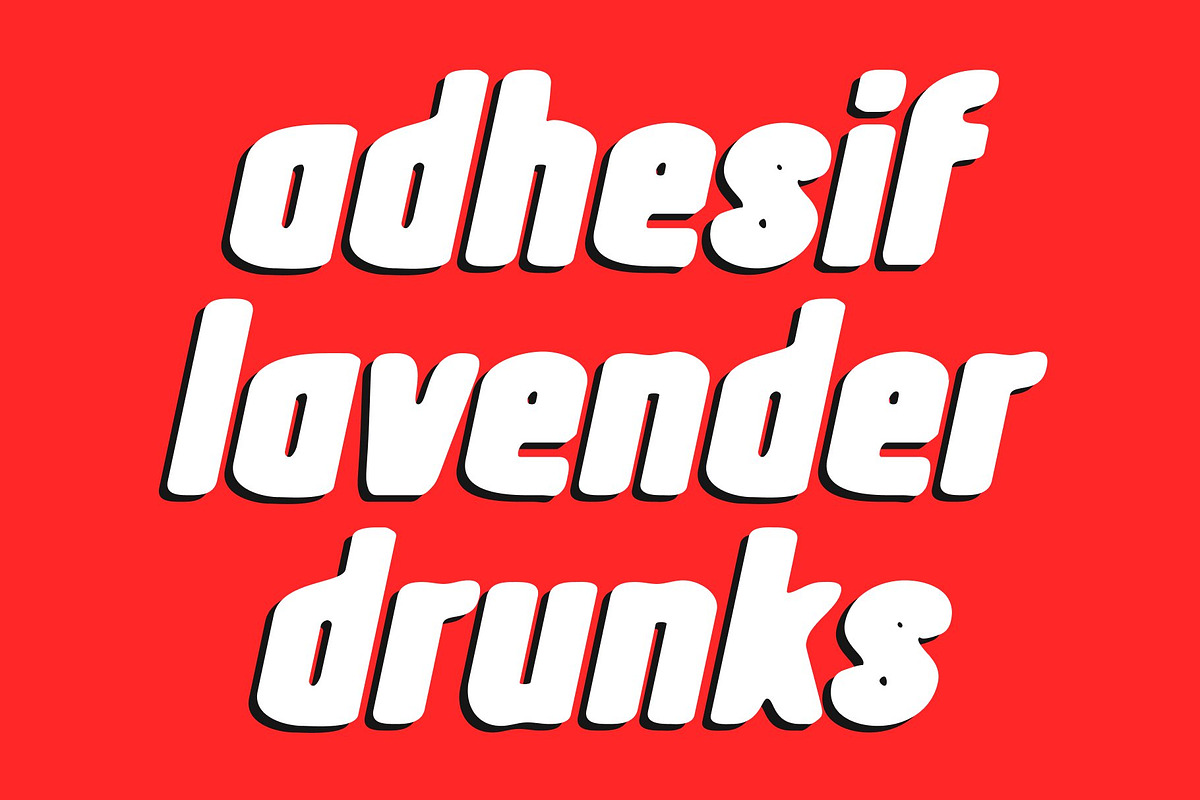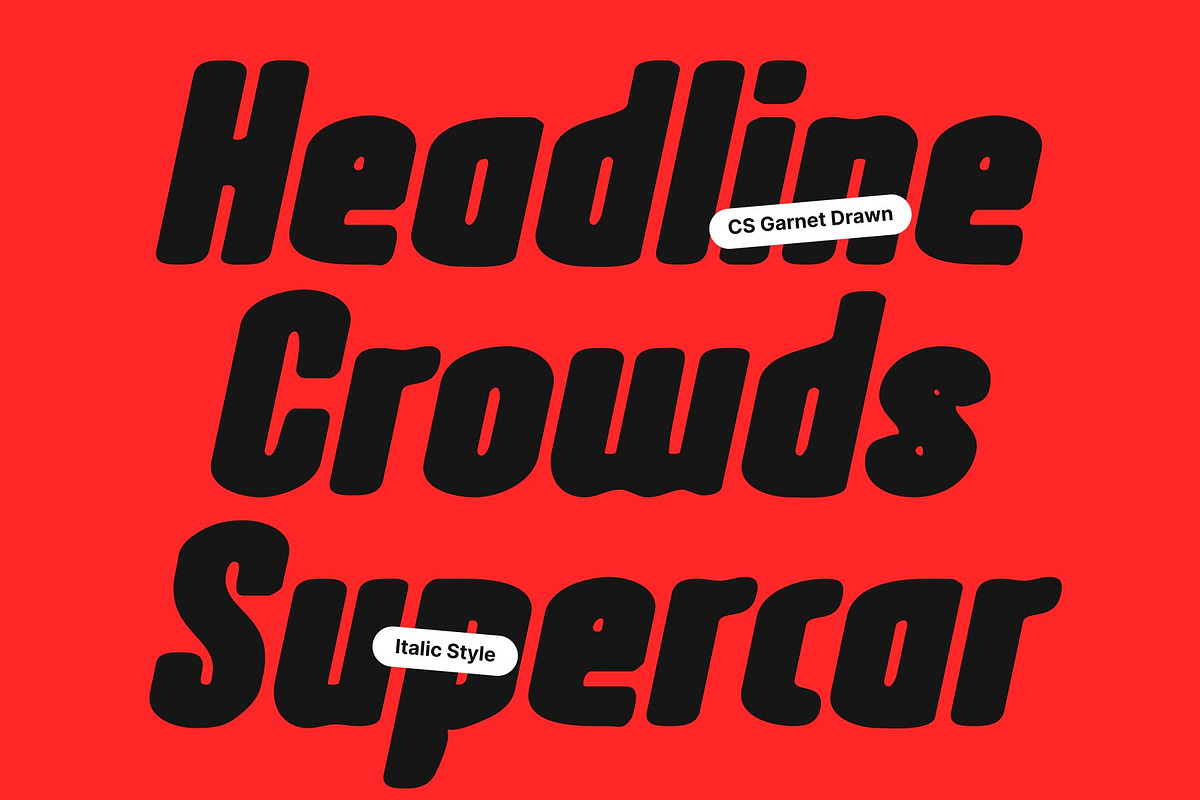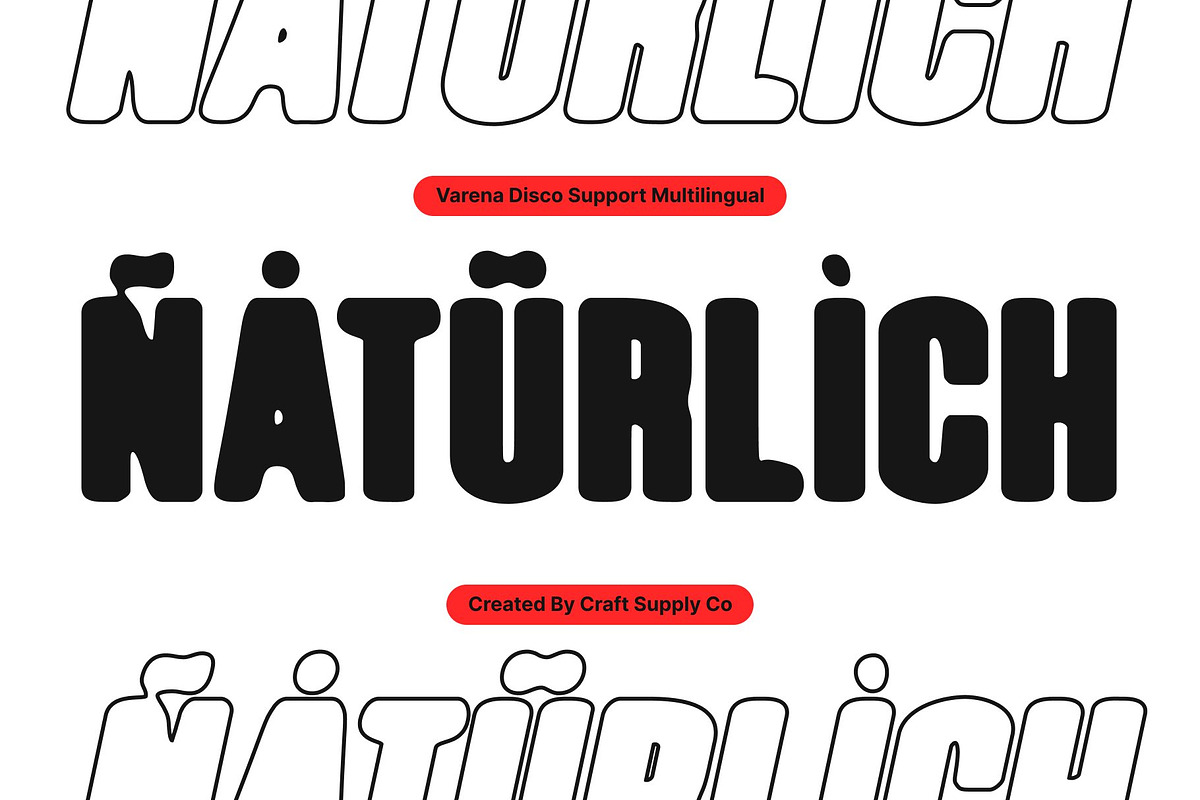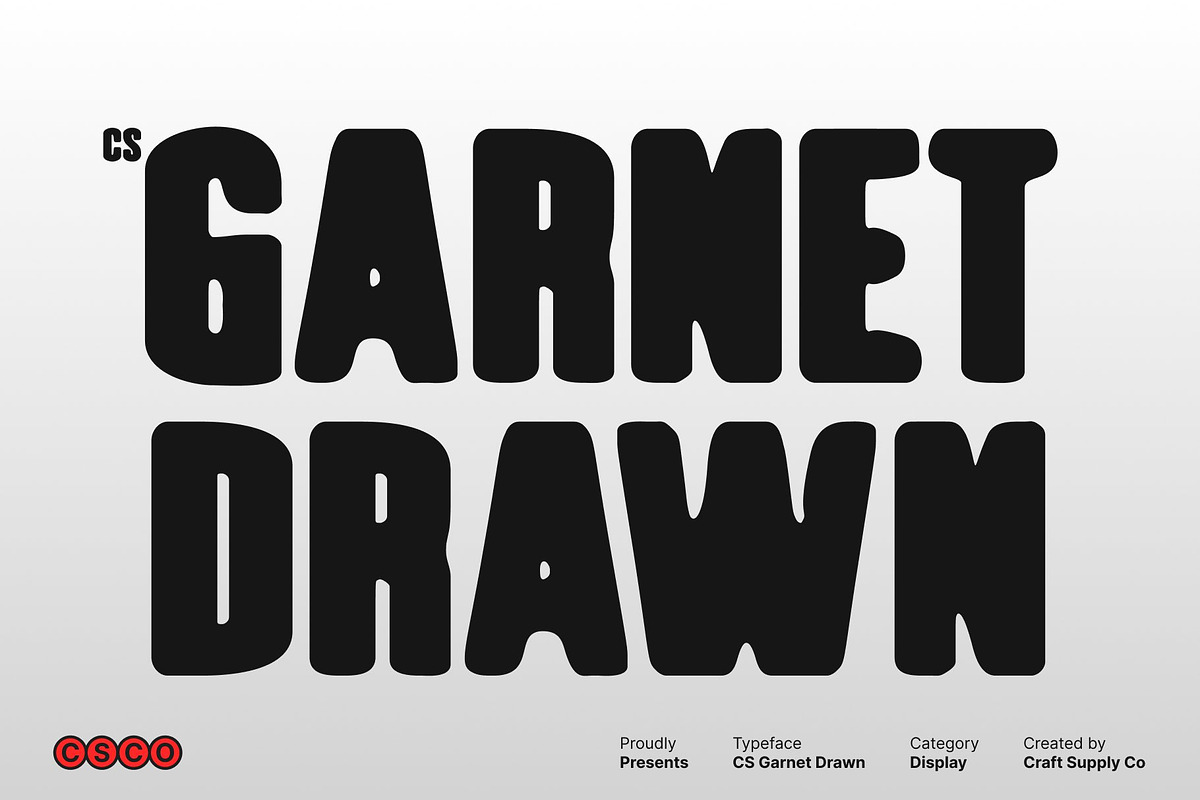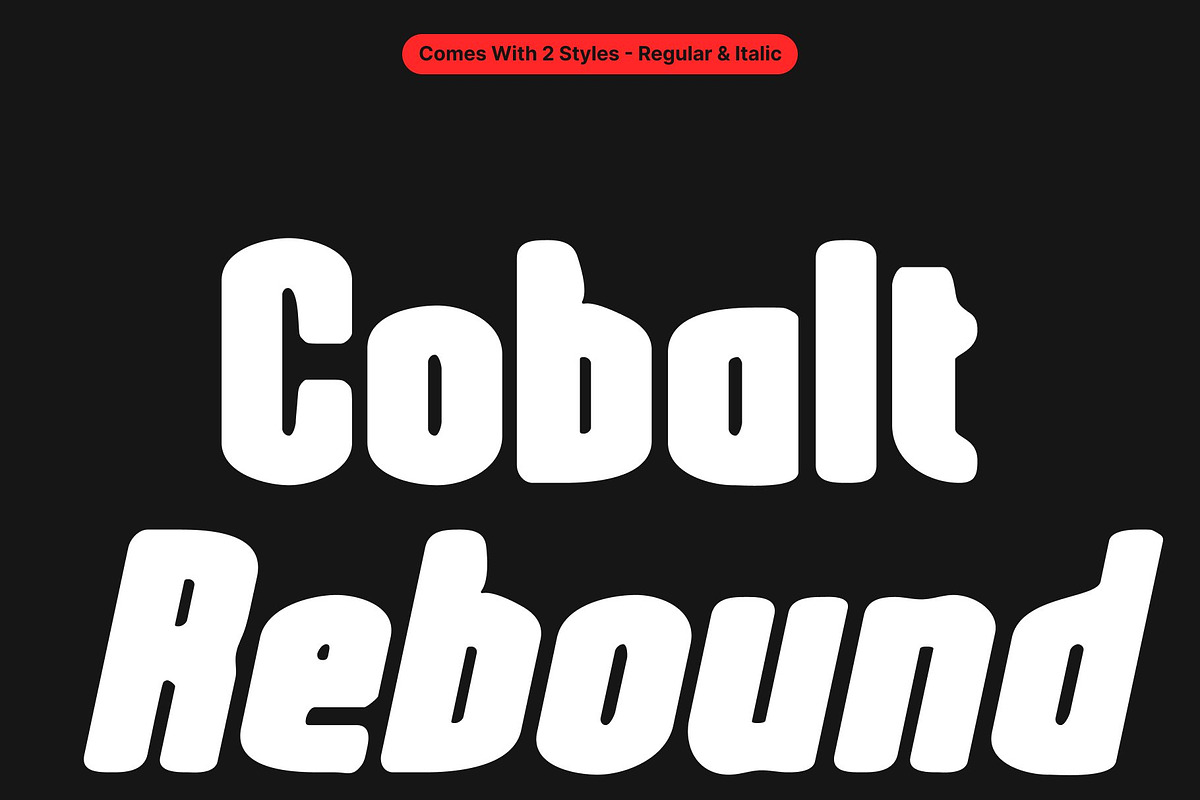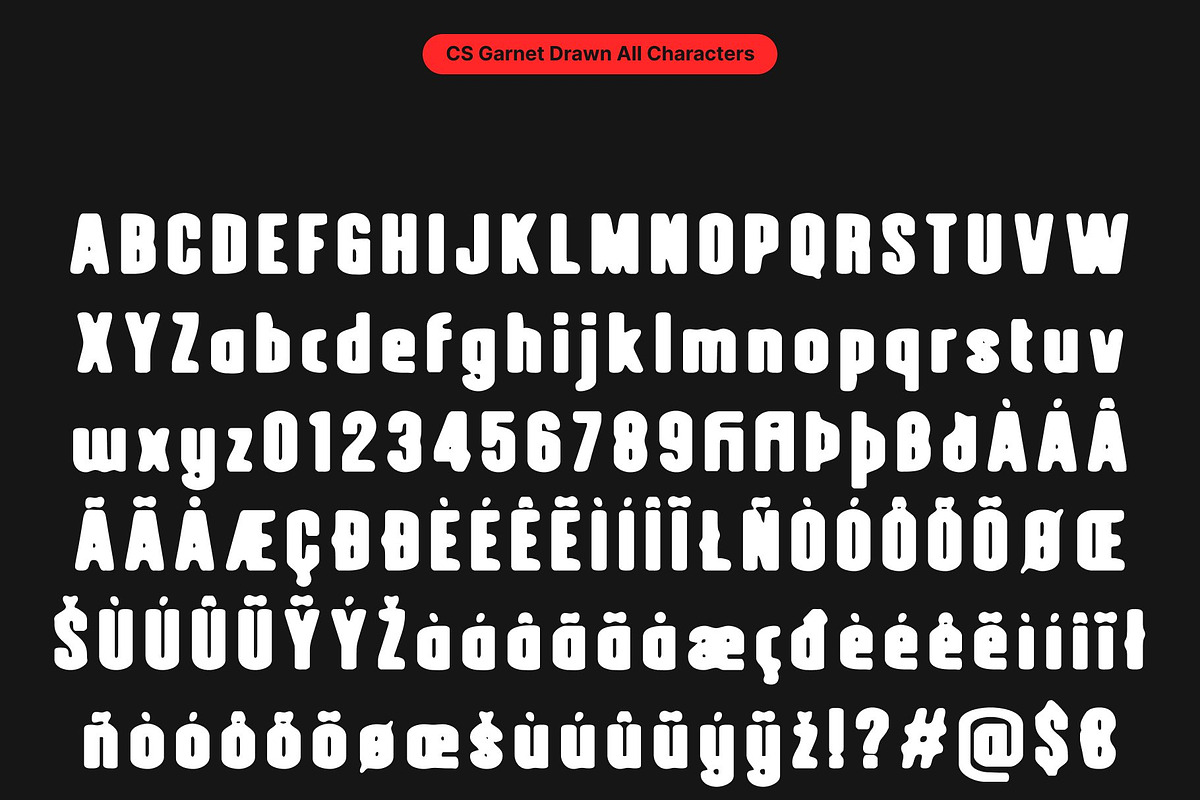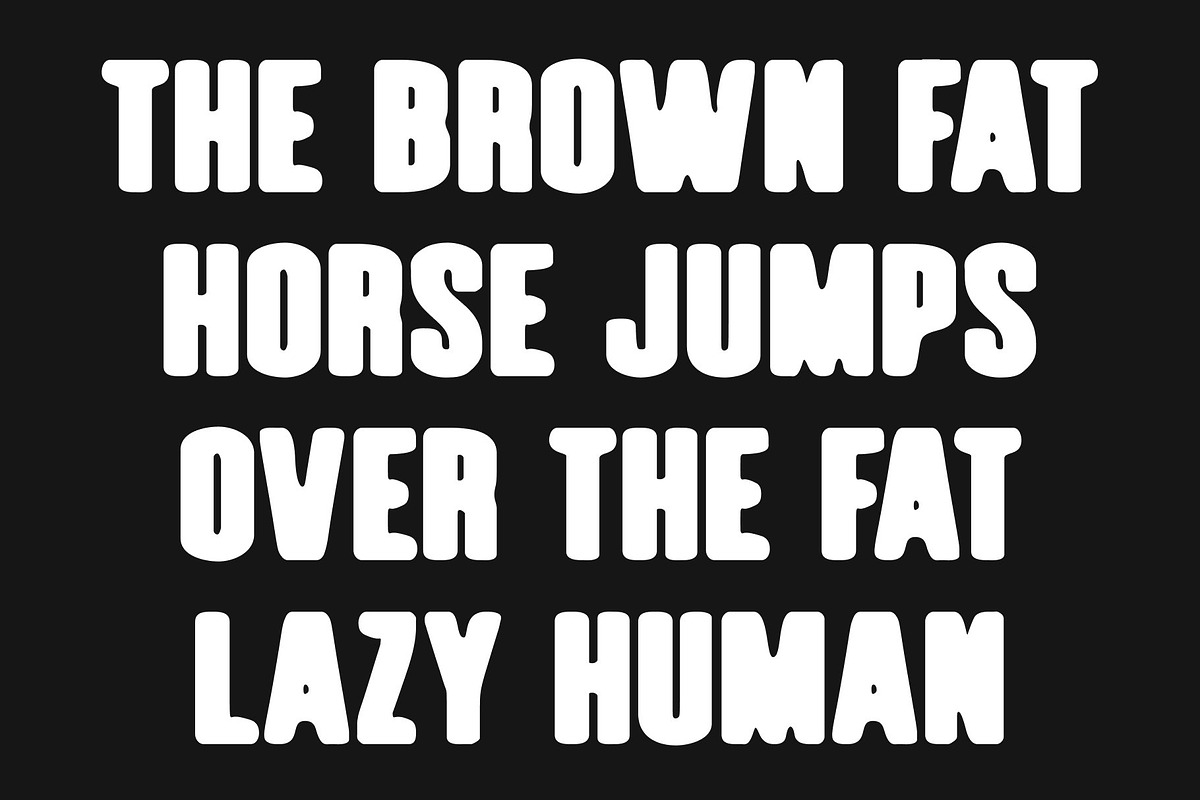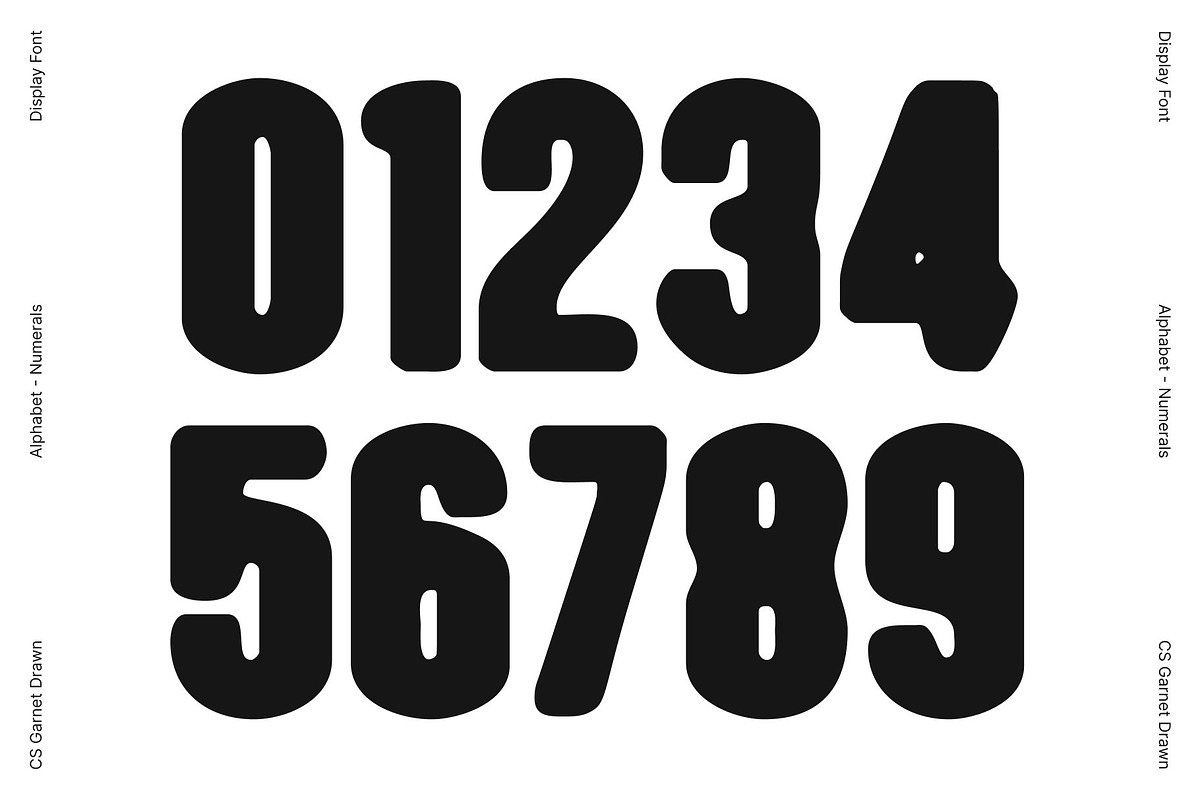
CS Garnet Drawn
CS Garnet Drawn – Condensed Sans Serif with Maximum Impact
Strong and Modern Design This font is a condensed sans serif font built for powerful visual presence. Its compact proportions allow it to make a bold statement even in tight spaces, ensuring your designs command attention without sacrificing style. Ideal for headlines, posters, and branding, this font delivers strength, focus, and modern clarity.
Efficient and Readable Letterforms Despite its condensed structure, this font maintains excellent readability. Each character is carefully crafted to balance boldness with clarity, making it perfect for projects where space is limited but impact cannot be compromised. The structured forms keep text clear, confident, and visually balanced.
Contemporary Aesthetic Enhanced by Drawn Texture The font’s modern geometric shapes give it a clean and professional look, while the drawn effect introduces a unique texture and organic character. This subtle handcrafted detail adds depth and individuality, giving the letterforms a distinctive shape that feels more expressive and visually engaging than standard condensed fonts.
Ideal for Bold and Distinctive Projects This font is the go-to typeface for designers seeking a compact yet striking solution with added personality. Its combination of strong presence, legibility, modern aesthetics, and drawn texture makes it perfect for branding, poster art, editorial headlines, and any project that needs to stand out with clarity, impact, and unique visual character.